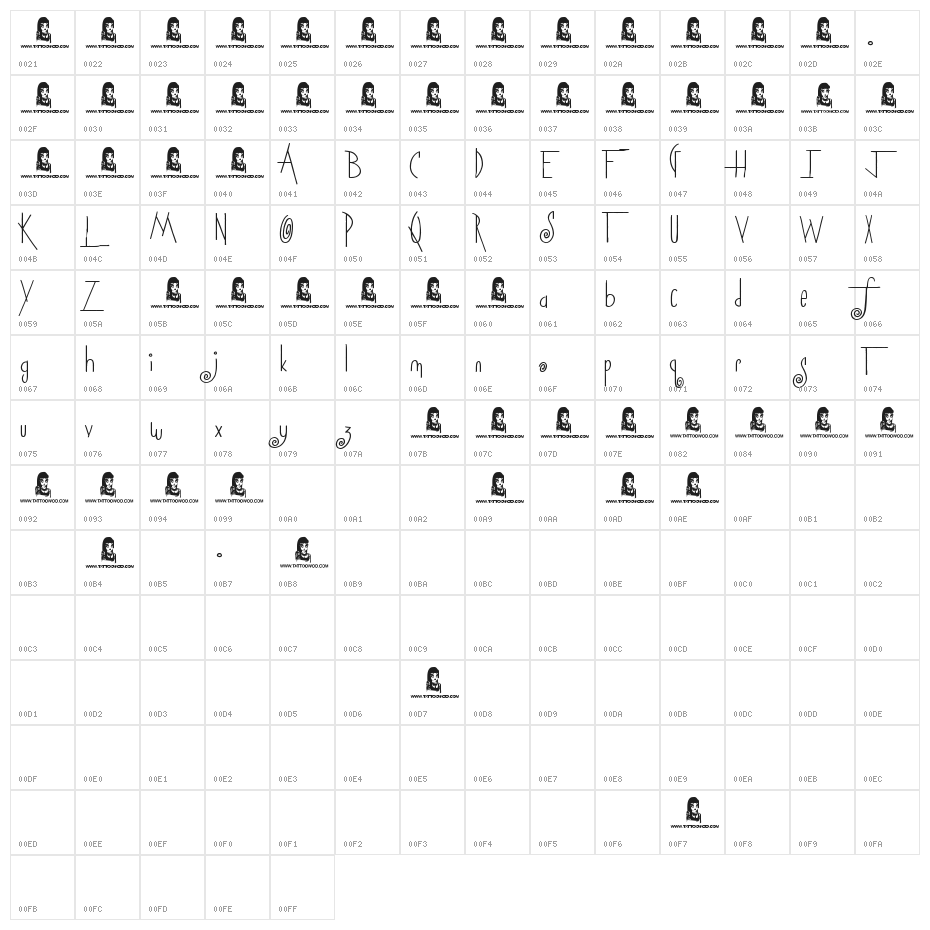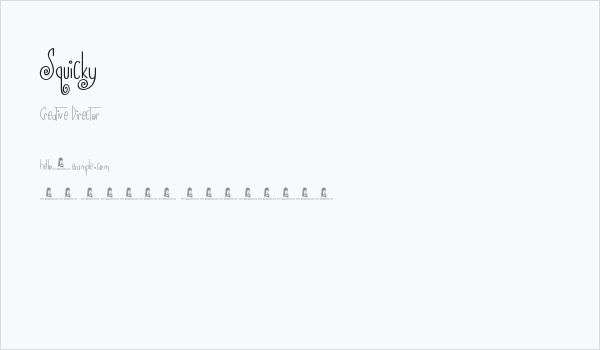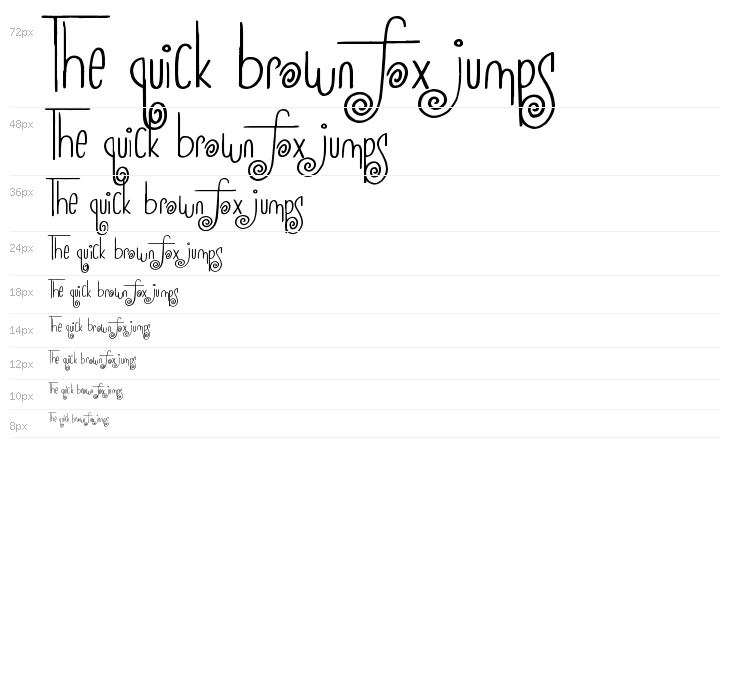
Squicky Font
This font features a whimsical and playful design, characterized by its elongated and exaggerated letterforms. The uppercase letters are particularly distinctive, with some incorporating spiral and loop elements that add a sense of movement and creativity. The lowercase letters maintain a similar quirky style, with a mix of straight and curved lines that create a unique visual rhythm. The font's overall appearance is reminiscent of hand-drawn or doodle art, making it stand out with its artistic flair. The characters are thin and have a light stroke weight, contributing to a delicate and airy feel. This font would be ideal for projects that aim to convey a sense of fun, creativity, and individuality.
| Proposed Projects | Ideal for children's book covers, creative posters, playful branding, and artistic invitations. |